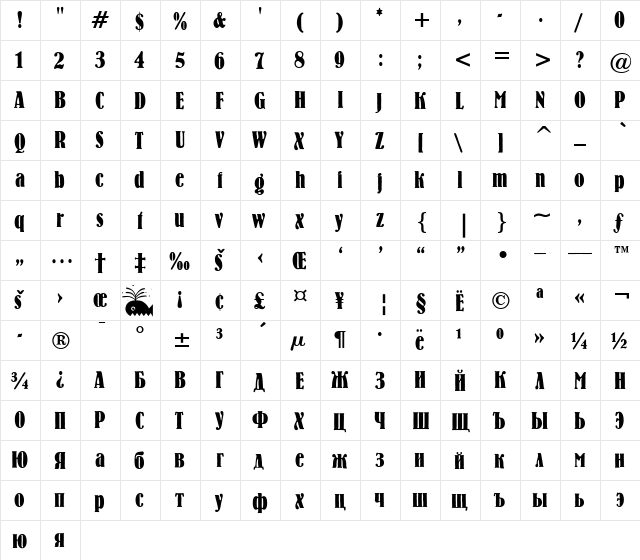
BeRn TYGRA Regular
| Designer | Yury Sokolnikov |
Design Context for BeRn TYGRA Typeface
BeRn TYGRA is a composed and adaptable typeface that performs quietly and consistently across a wide range of design contexts.